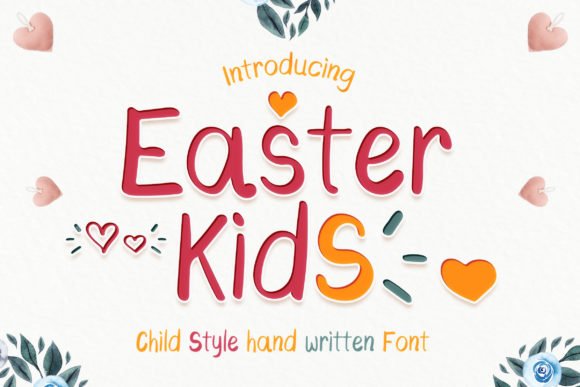
Discover the Joy of Easter Kids Font
Remember that moment when you stumbled upon the perfect font for your design project? It’s like finding a missing puzzle piece that brings everything together. For designers working on child-related projects, that moment often comes when they discover the Easter Kids Font. This delightful handwritten font is designed to spread joy and friendliness, making it perfect for school projects, children’s book covers, or any other design that requires a touch of whimsy.
With its cute doodle elements and sweet, versatile style, the Easter Kids Font is a valuable addition to any designer’s toolkit. Whether you’re creating educational materials, party invitations, or social media graphics, this font is sure to bring a smile to your audience’s faces. So why settle for a generic font when you can use the Easter Kids Font to add a personal touch to your designs?
Easter Kids Font Key Features
- Font Style: Easter Kids Font is a fun, child-friendly font with Easter-themed elements and colorful designs.
- Character Count: The font includes a wide range of characters, including uppercase and lowercase letters, numbers, and special characters.
- Unique Characteristics: The font features colorful Easter eggs, bunnies, and other Easter-themed elements, adding a playful touch to any design.
Easter Kids Font Review
I recently had the chance to work with the Easter Kids Font, and here’s my honest take on it.
- Playful and Fun: This font truly captures the spirit of Easter with its cute and whimsical feel.
- Perfect for Kids’ Content: Whether it’s a children’s book, website, or social media post, Easter Kids Font is sure to delight young audiences.
- High-Quality Glyphs: The font’s glyphs are well-designed, clear, and easy to read, even at small sizes.
- Limited Font Family: Easter Kids Font is a single font style, which might limit its versatility in certain designs.
- No Bold or Italic Options: While the font’s playful feel works well for most applications, there are times when a bold or italic version would be helpful.
Overall, I think Easter Kids Font is a great choice for projects that need a lighthearted, kid-friendly feel. While it has some limitations, its unique personality and high-quality glyphs make it a valuable addition to any designer’s toolkit.
Tips for Getting the Most Out of the Easter Kids Font
For optimal results, use the Easter Kids Font in conjunction with bright, pastel colors and playful graphics. Experiment with different font sizes and styles to create a cohesive and engaging design.
The Easter Kids Font is ideal for:
- Easter-themed designs and marketing materials
- Spring and summer-themed designs
Alternative Fonts to Easter Kids Font
Great Vibes Font is a fun, cursive script font suitable for creating playful and whimsical designs. It’s ideal for use in children’s products, party invitations, and educational materials. Great Vibes Font has a more elegant feel compared to Easter Kids Font, which is more cartoonish.
Alex Brush Font is a beautiful, handwritten script font perfect for adding a touch of sophistication and elegance to your designs. It’s suitable for use in branding, advertising, and editorial materials. Alex Brush Font has a more refined feel compared to Easter Kids Font, which is more playful and informal.
Dancing Script Font is a stylish, cursive script font ideal for creating eye-catching headlines and titles. It’s suitable for use in fashion, beauty, and lifestyle designs. Dancing Script Font has a more dynamic feel compared to Easter Kids Font, which is more static and cartoonish.